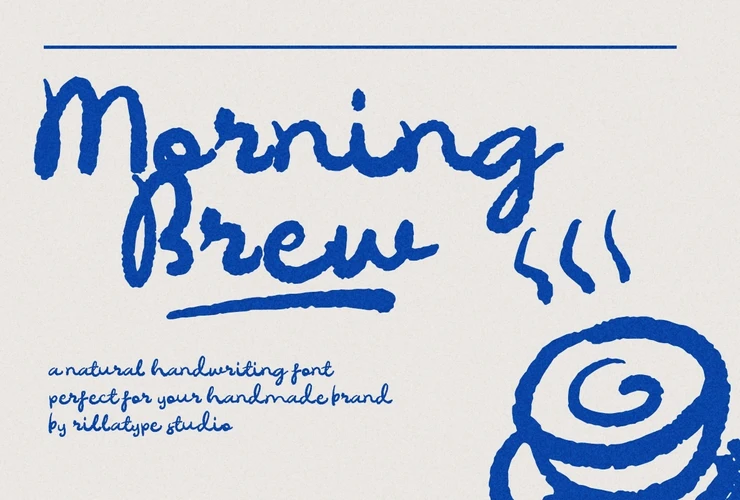
Morning Brew: The Cozy Handwritten Script Font
Morning Brew Natural Script is a delightful handwritten font designed to infuse your projects with a warm, personal touch. Inspired by the simple pleasure of a freshly brewed cup of coffee, this font captures the essence of organic, free-flowing handwriting. With its fluid strokes and authentic texture, Morning Brew brings a cozy, inviting feel to any design.
The Essence of Morning Brew
Morning Brew is more than just a font; it’s an experience. The natural, handwritten style of this typeface makes it perfect for a variety of creative projects. Whether you’re working on logos, invitations, social media graphics, or any other design, Morning Brew adds a touch of handwritten charm that stands out. Its unique blend of upper and lowercase letters, numerals, punctuation, and a variety of ligatures ensures that your text looks beautifully handwritten and authentic.
This font’s organic feel makes it ideal for projects that seek to convey warmth and sincerity. The natural strokes and realistic texture provide a handcrafted look, making your designs feel more personal and relatable. It’s the perfect choice for brands and creatives looking to establish a genuine connection with their audience.
Features and Versatility
Morning Brew includes a full set of upper and lowercase letters, numerals, punctuation, and a range of ligatures. This comprehensive character set allows for versatile use across different languages and design needs. Whether you’re aiming for a modern, rustic, or classic look, Morning Brew adapts seamlessly to your creative vision.
Handwritten Charm: Captures the essence of natural, free-flowing handwriting, perfect for creating warm and inviting designs.
Versatile Use: Ideal for logos, invitations, social media graphics, and more, with a full set of characters and ligatures.
Authentic Feel: Adds a cozy, handcrafted touch to your projects, making them feel personal and unique.